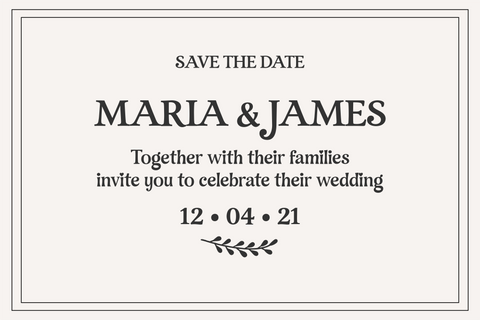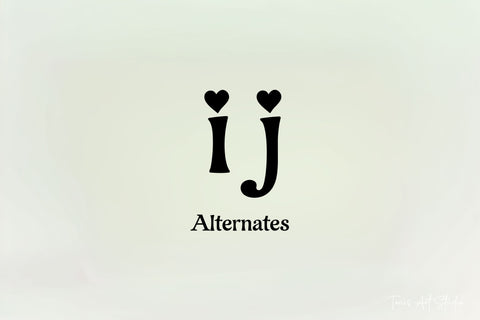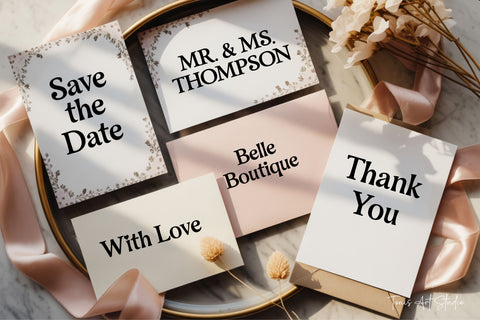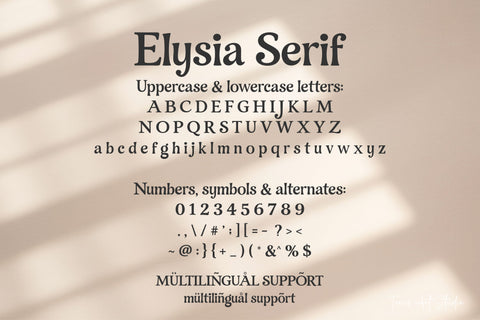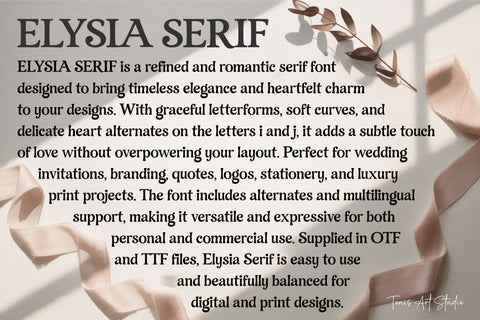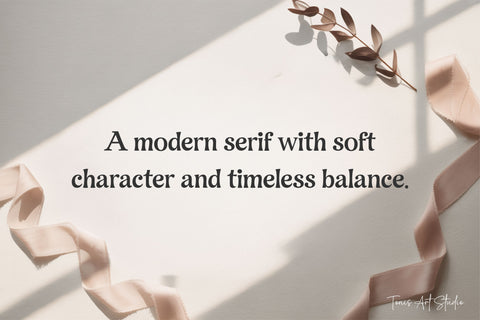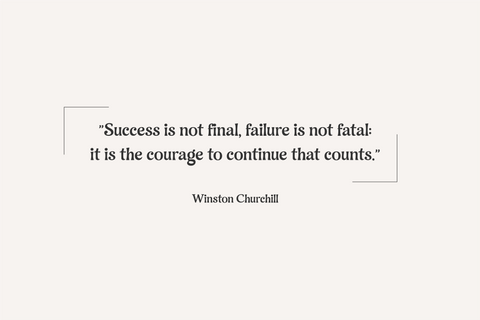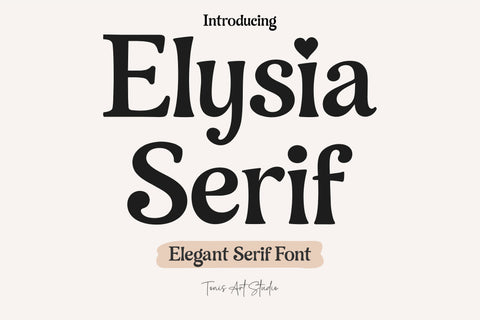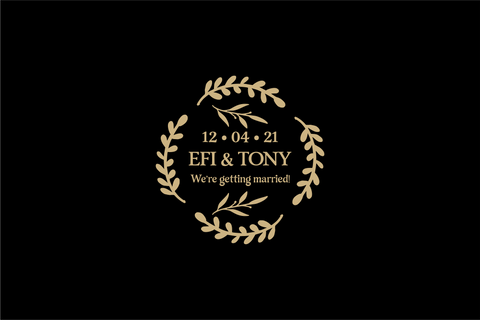
Elysia Serif – Elegant Modern Serif Font
Elysia Serif is a modern serif font designed with soft character and timeless balance. Its refined letterforms combine classic serif structure with gentle curves, creating a typeface that feels elegant, clear, and versatile.
This font is ideal for branding, logos, editorial layouts, quotes, packaging, stationery, posters, and print-focused designs. Subtle heart details on the lowercase i and j add a quiet touch of personality while keeping the overall style clean and professional.
Elysia Serif includes uppercase and lowercase letters, numbers, punctuation, symbols, and multilingual support. The font is supplied in OTF and TTF formats and is compatible with most design software. Carefully balanced spacing and proportions make it suitable for both digital and print environments.
Designed for creators seeking a serif font that feels modern, readable, and quietly distinctive, Elysia Serif is a reliable choice for a wide range of creative projects.